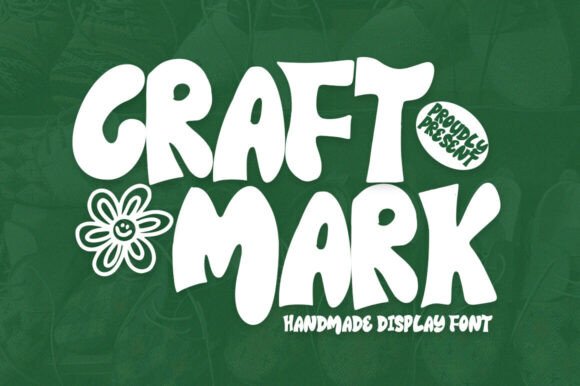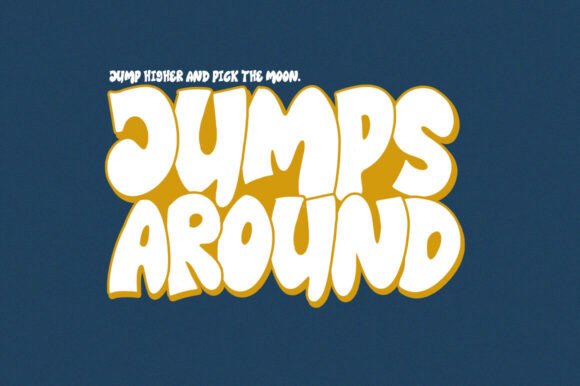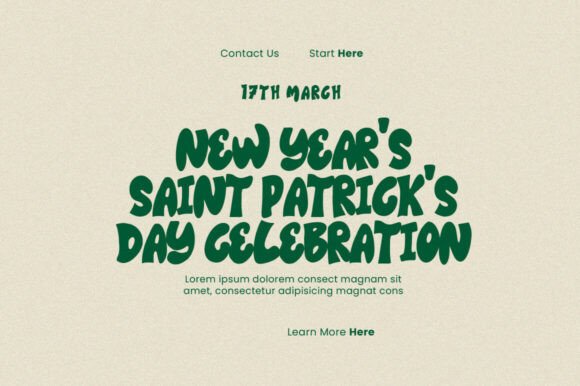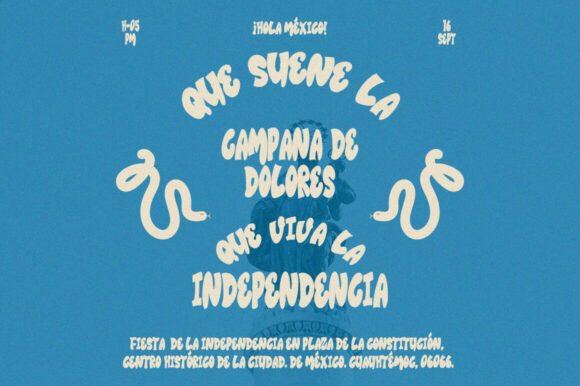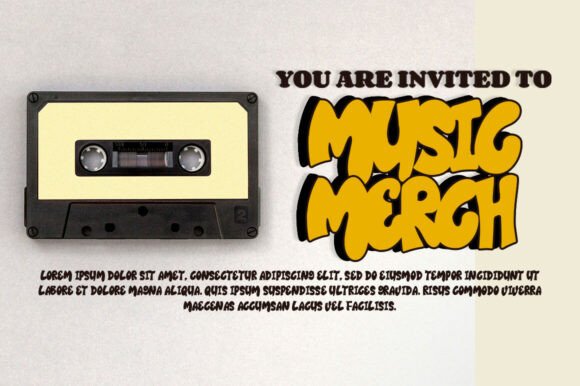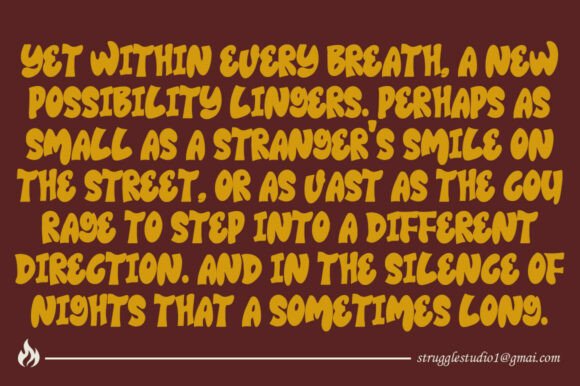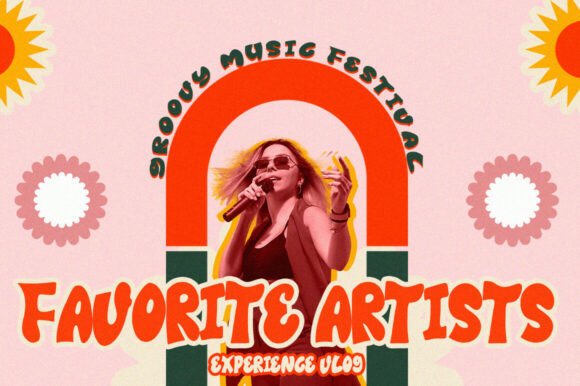
Craft Mark Font
Craft Mark is a playful handmade display font that brings a cheerful and friendly vibe to your designs. With bold, rounded letterforms and quirky shapes, this font feels casual, fun, and approachable. The hand-drawn style makes it perfect for creative projects such as posters, packaging, logos, children’s books, social media graphics, and DIY-inspired branding.
Its unique, slightly irregular strokes give it a natural and authentic look, while the lively design ensures your message stands out with personality and charm.